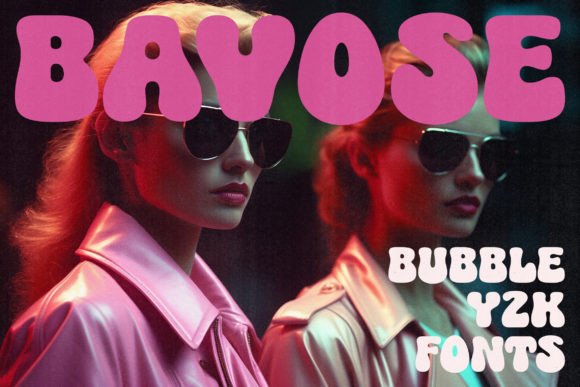
Bavose Font: Elevate Your Designs with Retro Flair
In the realm of graphic design, fonts play a pivotal role in conveying messages, evoking emotions, and creating lasting impressions. With the vast array of fonts available, designers often seek unique and captivating typography to make their work stand out. This is where Bavose Font comes into play, offering a delightful collection of vintage-inspired fonts that can instantly elevate your designs.
In today’s fast-paced digital landscape, designers are constantly looking for innovative ways to capture their audience’s attention. One effective approach is to incorporate retro elements into your designs, as they often evoke a sense of nostalgia and familiarity. Bavose Font is here to help you achieve this, providing a blast from the past that brings those old-school vibes to your fingertips.
Basic fonts can be, well, boring. They often lack personality and fail to leave a lasting impression on viewers. With Bavose Font, you can bid farewell to bland typography and hello to a world of creative possibilities. Their collection of vintage-inspired fonts is designed to add a touch of nostalgia and whimsy to your designs, making them truly unforgettable.
- Unique and Eye-Catching: Bavose Font offers a distinctive collection of fonts that can instantly grab attention and set your designs apart from the crowd.
- Retro Flair: Their fonts are inspired by classic typography, bringing a touch of nostalgia and vintage charm to your designs.
- Creativity Unleashed: With Bavose Font, you can experiment with various styles and combinations to create truly unique and captivating designs.
- Vintage-Inspired: Each font in the Bavose collection is carefully crafted to evoke a sense of nostalgia and retro charm.
- High-Quality: The fonts are designed to deliver exceptional clarity and legibility, ensuring your designs look professional and polished.
| Font Name | Bavose Font |
| Author | konstantinestudio |
In conclusion, Bavose Font offers a unique and exciting way to elevate your designs with retro flair. Their collection of vintage-inspired fonts is perfect for designers looking to add a touch of nostalgia and whimsy to their work. With its user-friendly approach, high-quality fonts, and creative possibilities, Bavose Font is an excellent choice for anyone looking to take their designs to the next level.